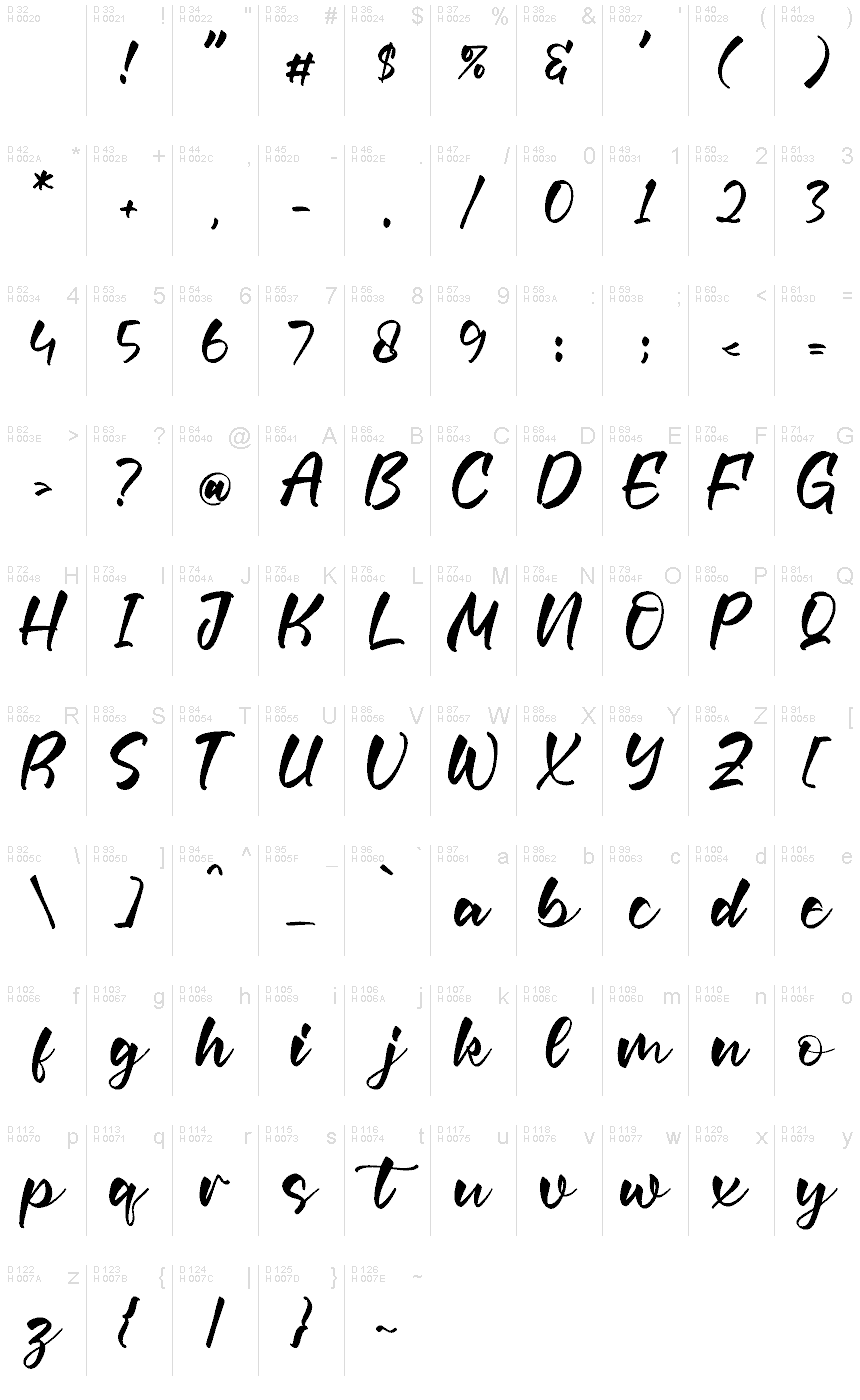
This is a free-for-personal-use brush script font that’s modern and casual and can be used in many creative projects.  Montelifa Gelista has a bold look, and it’s characterized by its flowing strokes and ligatures that create a sense of warmth.
This bold display script typeface is ideal for branding projects for cosmetics, jewelry, fashion designers, accessories and boutiques and is also great for web designing, wedding cards and invitation designing, t-shirts, posters, menu design etc.
Montelifa Gelista